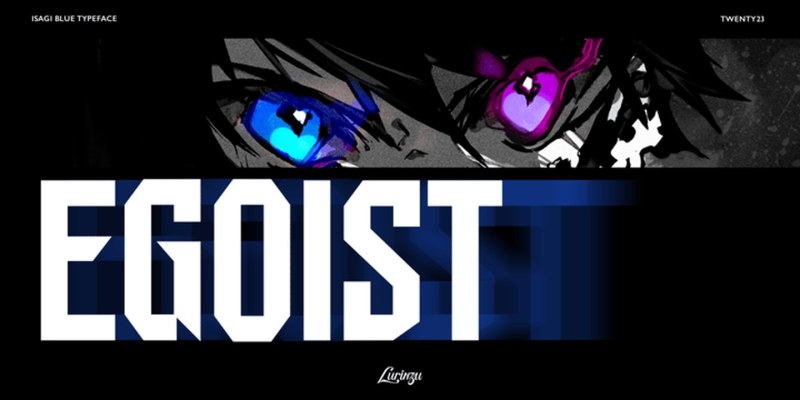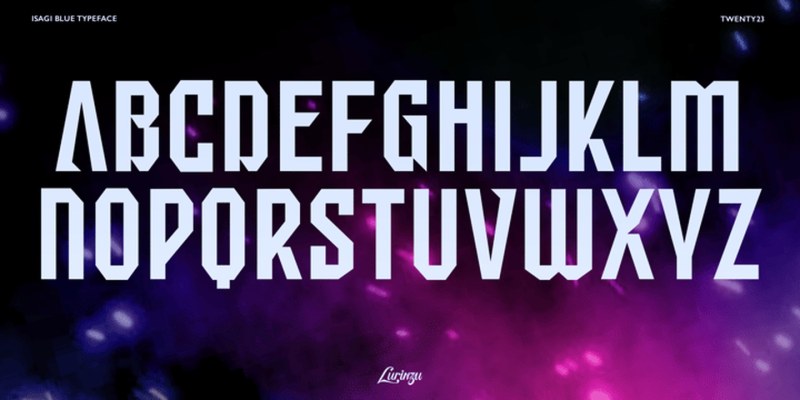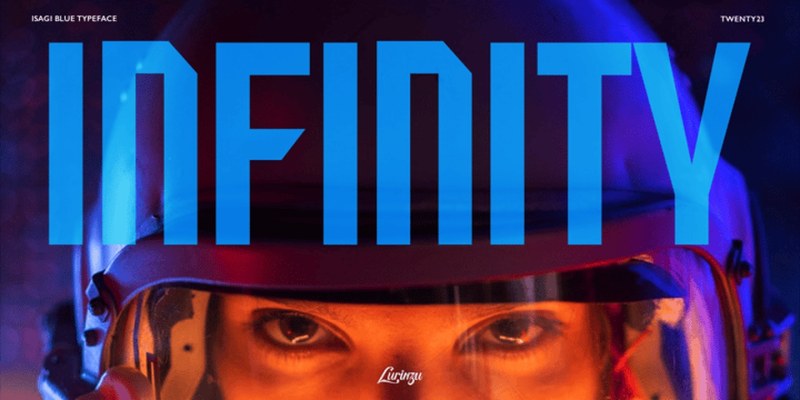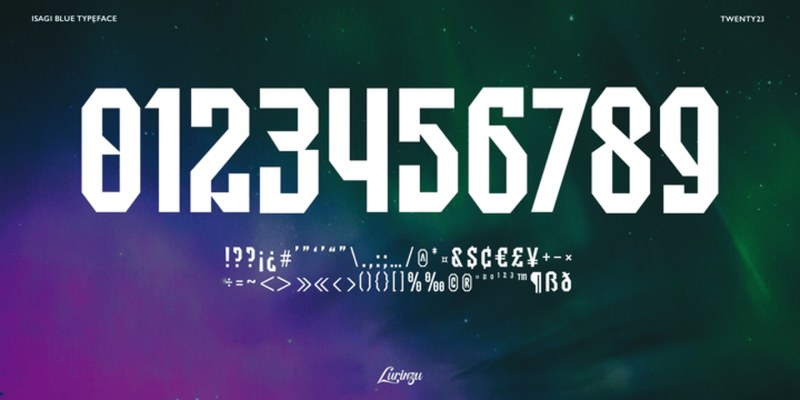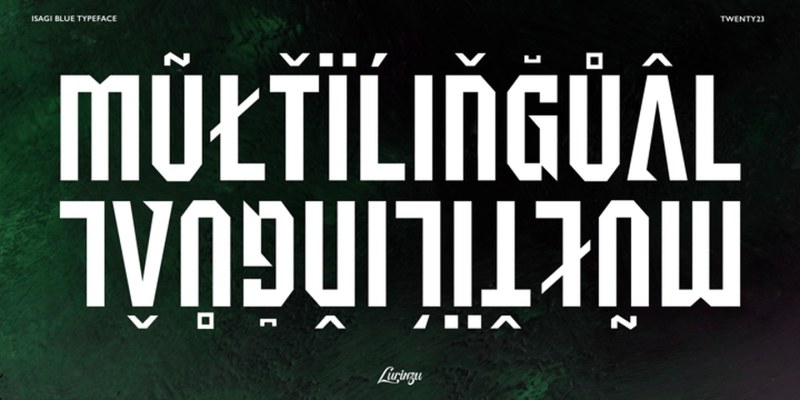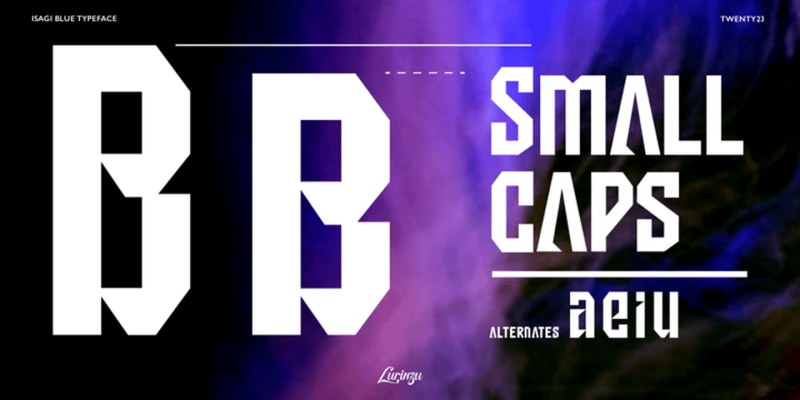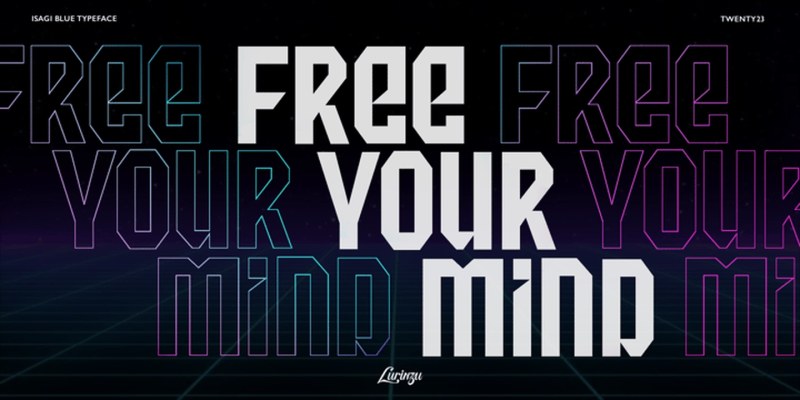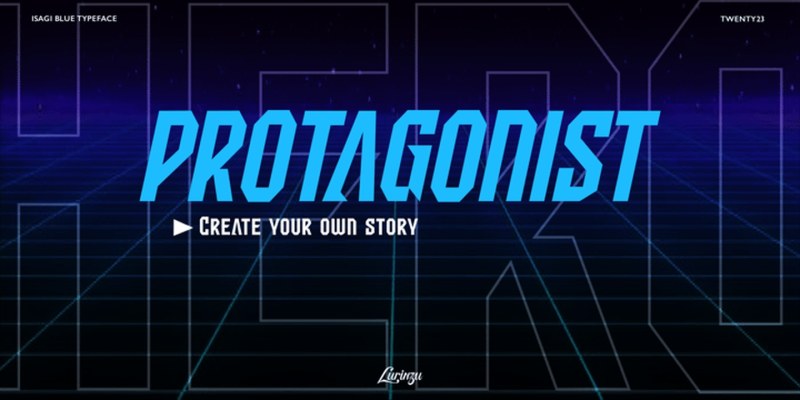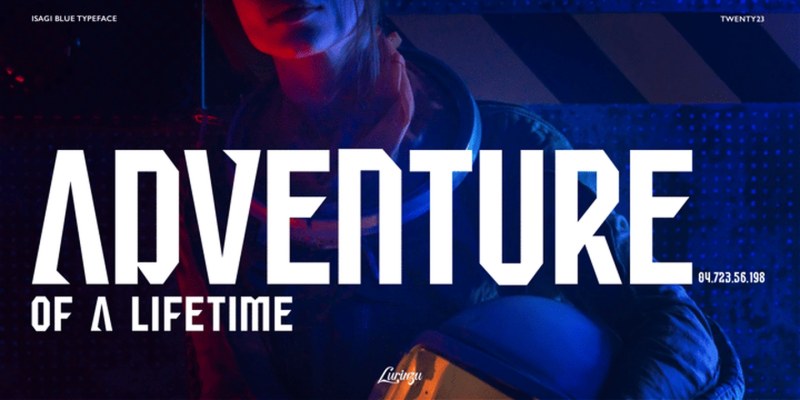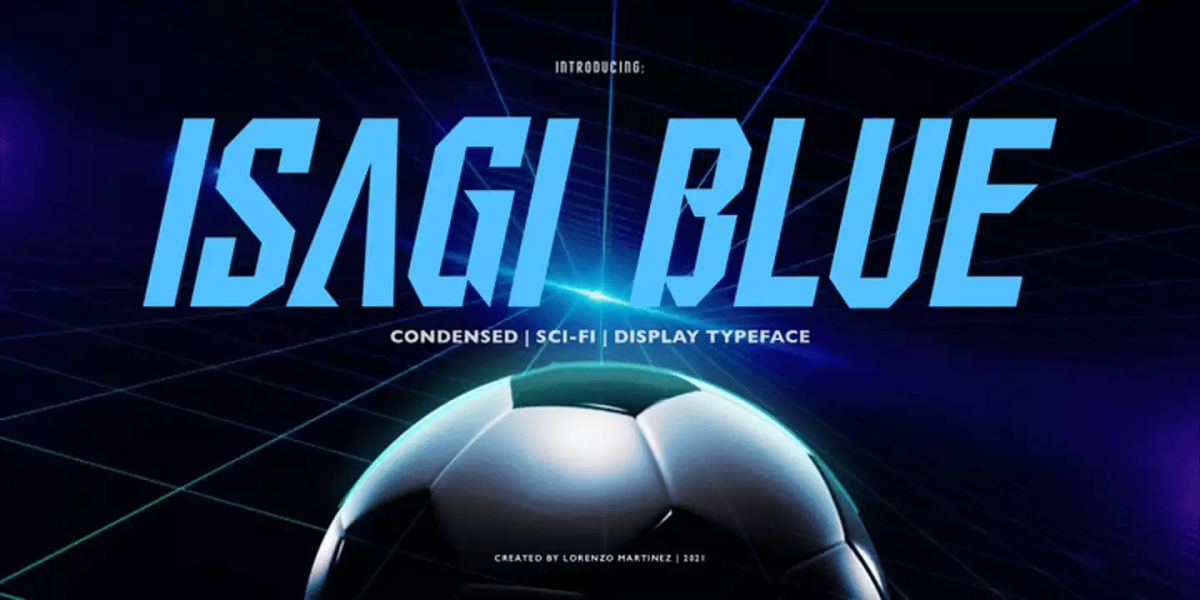
Isagi Blue Font Family
A techy, sci-fi condensed typeface that is inspired by the mixture of futuristic and athletic vibes into one out of this world headline typeface. This headline font best fits in large scale design when you want to immediately capture the attention of the viewers. This also fits with school-related, athletics, sports, future and science themed designs. This font includes letters, numbers, multi-language, and all essential marks needed.
Isagi Blue Font Family is a Display Fonts font that brings a professional and versatile look to your projects. A techy, sci-fi condensed typeface that is inspired by the mixture of futuristic and athletic vibes into one out of this world headline typeface.